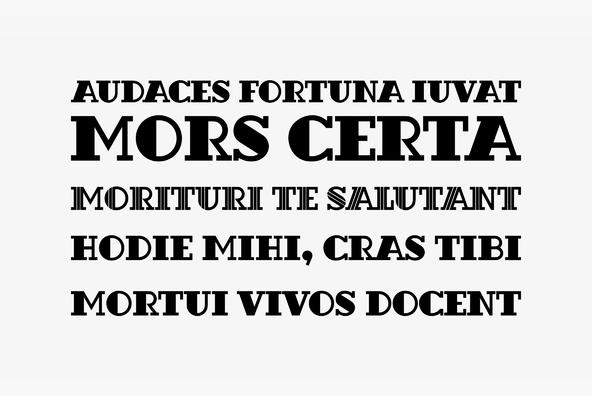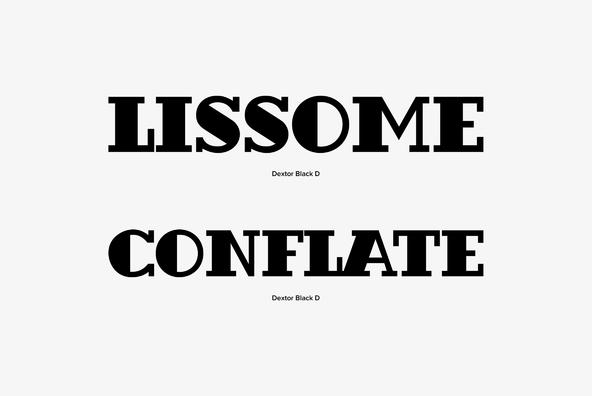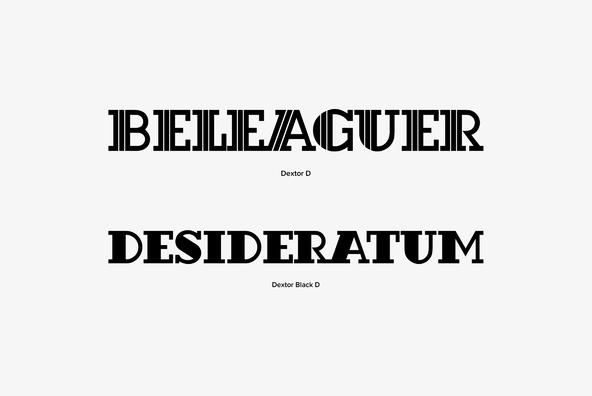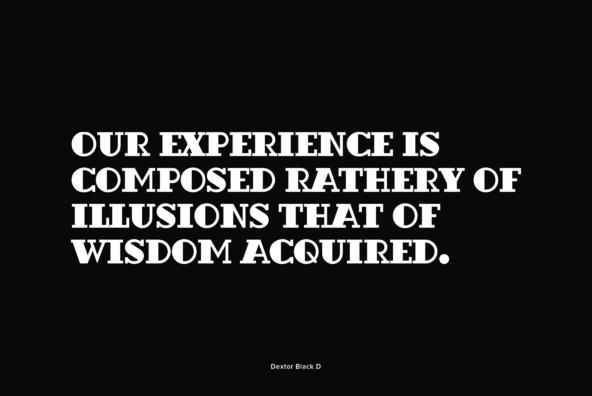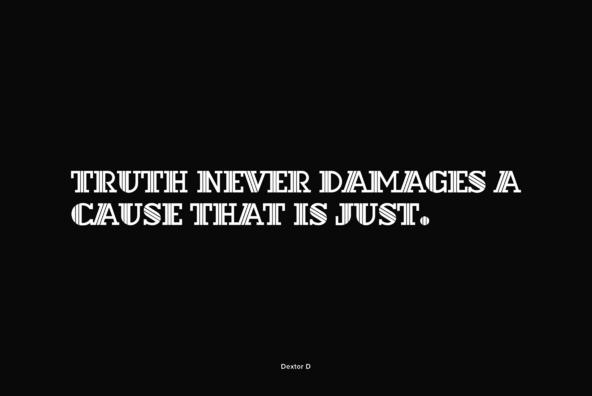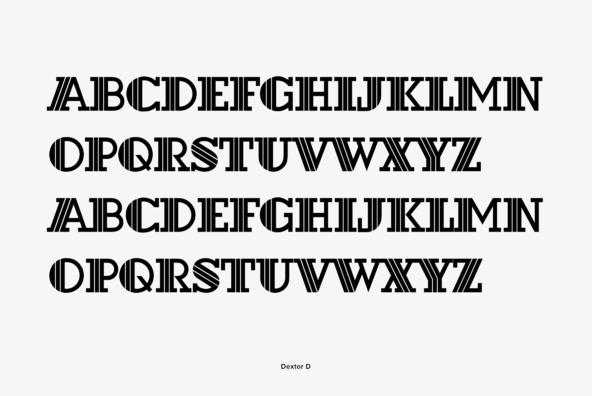
Dextor is a retro and decorative serif originally designed by the type foundry Mecanorma. Has a round slab-serif feel, with interesting options such as a lined-stencil style and shadow only weight.